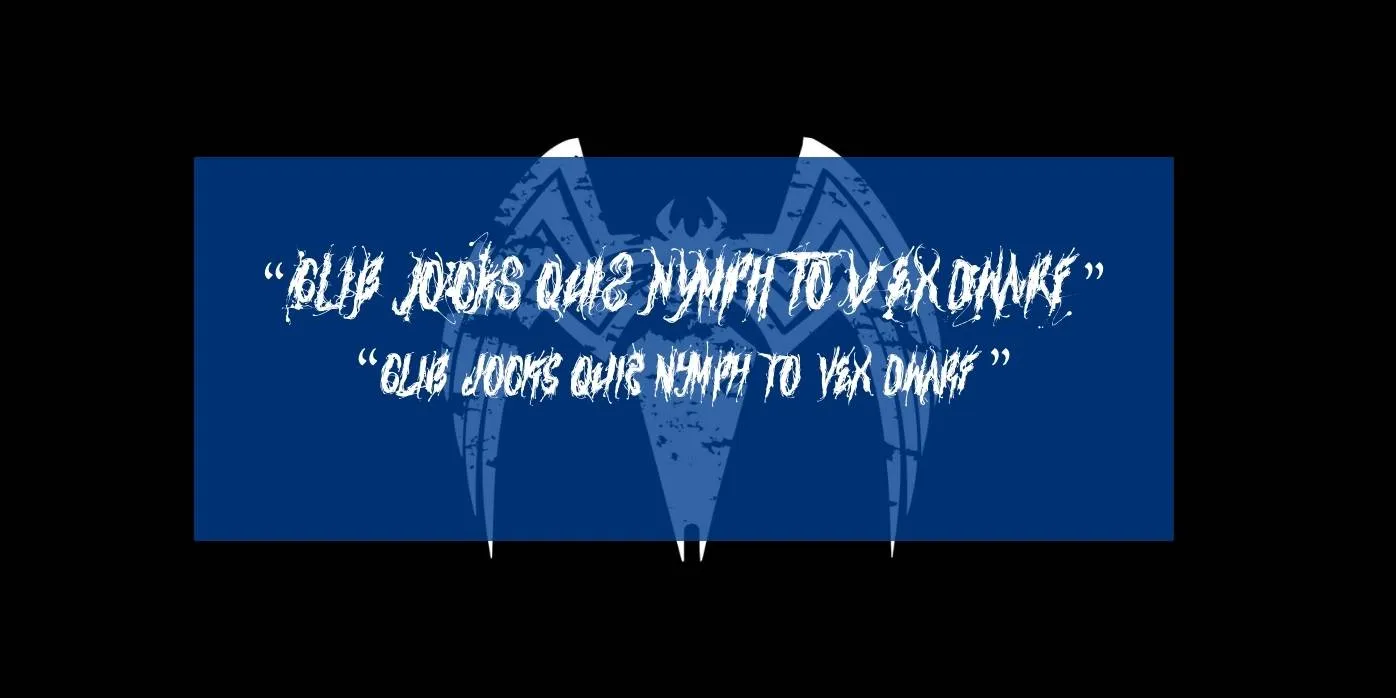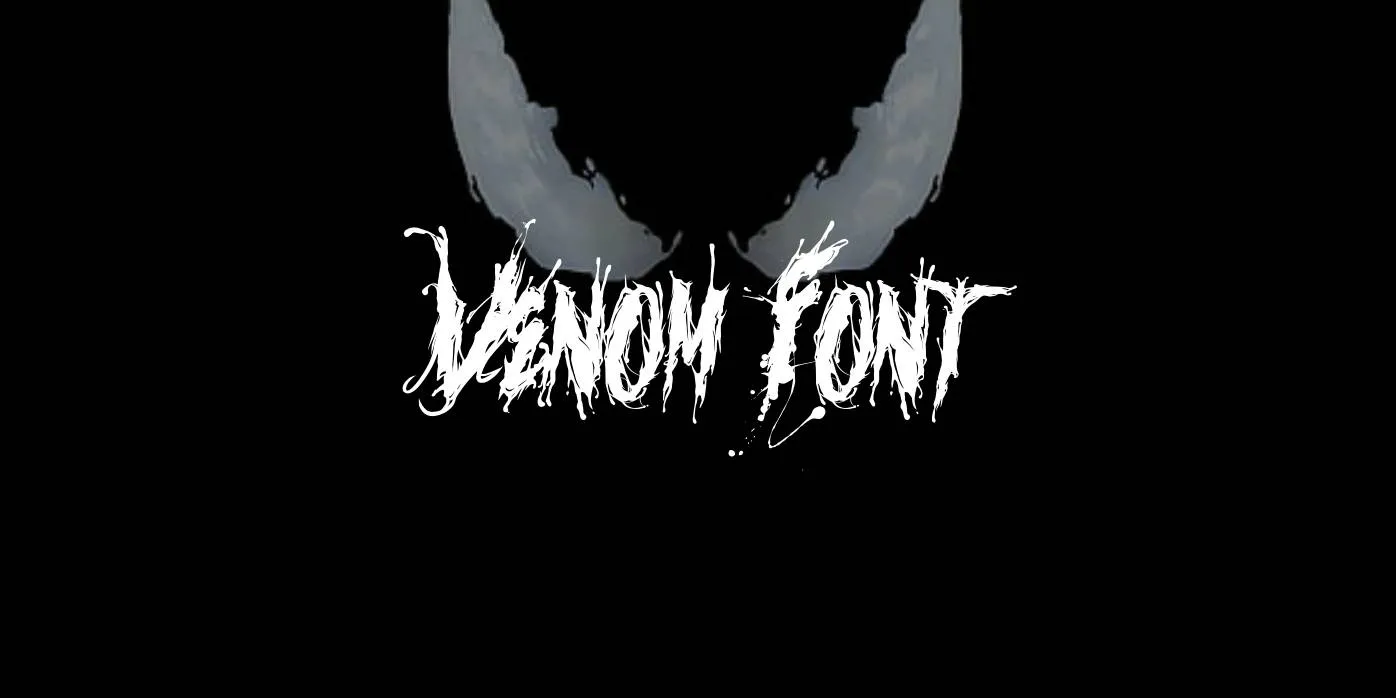
Venom Font
Venom Font is a very classic font that belongs to the Brush font family. it was developed and published by Fluffy Art Studio. It was designed on the base of an Indonesian art studio. The Venom Font supports Latin and Cyrillic languages.
It is used for the logo of a famous movie. This font is perfect for horror movie posters, book covers, games, web designs, etc. You can use this font for both personal and commercial purposes. If you are a fan of classic horror movies, then you will definitely like the Venom Font.
This typeface has stylish styles. It has a very unique and soft look that is perfect for creating a spooky atmosphere. This awesome font family has a lot of interesting features. Its online text generator tool is the best option for converting simple designs to graphic designs.